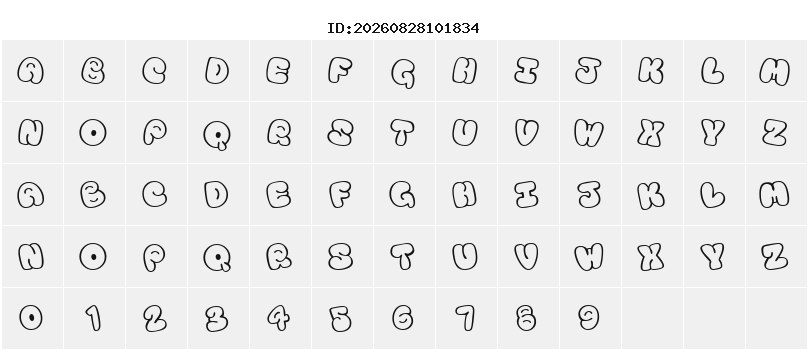
• Font Name: Tourist Trap
• Designer: Rich Gast
• Manufacturer: GreyWolf WebWorks
• Description: Air Brush style letters like those found on tourist trap t-shirts for the kiddies. Includes both outline and fill characters.